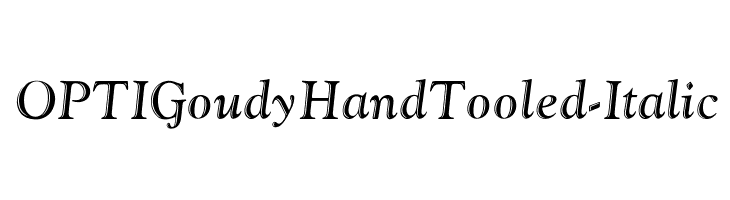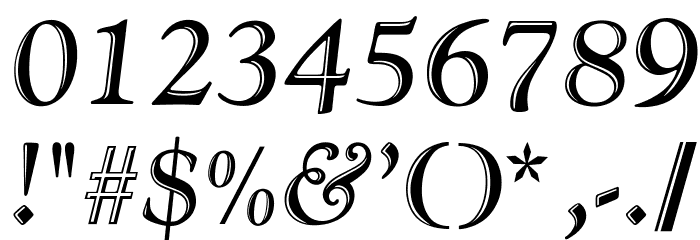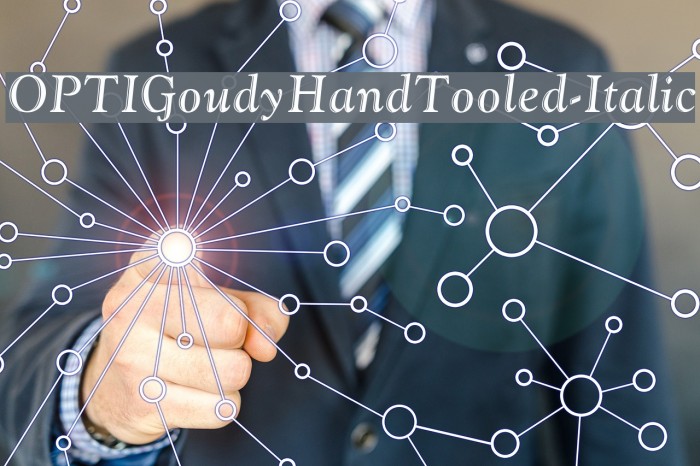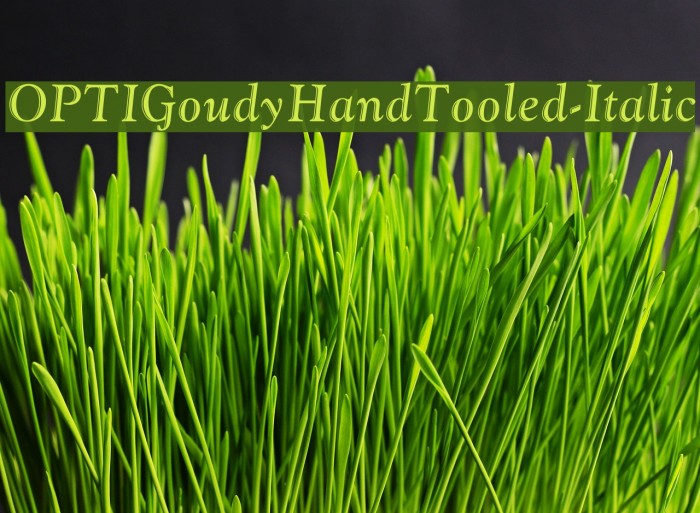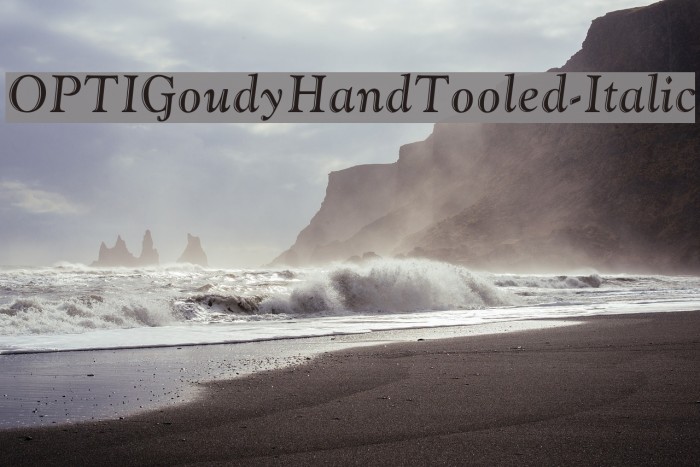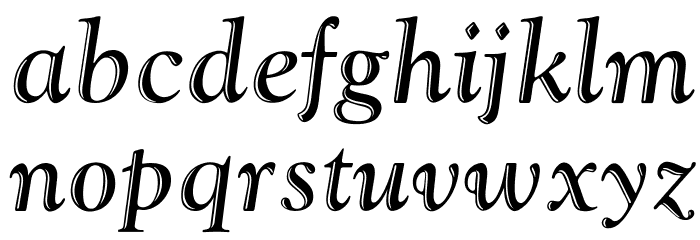
OPTIGoudyHandTooled-Italic Font
OPTIGoudyHandTooled-Italic Description
This font features a classic serif style with a hand-tooled appearance, giving it a unique and artistic flair. The italicized form adds a sense of elegance and movement, making it suitable for decorative purposes. The characters are well-defined with a moderate contrast between thick and thin strokes, enhancing readability while maintaining a sophisticated look. The serifs are pronounced, adding to the font's traditional aesthetic. This typeface is versatile, suitable for both formal and creative applications, and can add a touch of refinement to any design project.
A classic serif font with a hand-tooled, italicized style, offering elegance and readability from Uncategorized fonts.
- Proposed Projects: Ideal for wedding invitations, book covers, branding, and editorial design where a touch of elegance is desired.
- Overall Style: Classic
- Use Case: Headlines, Logos, Invitations